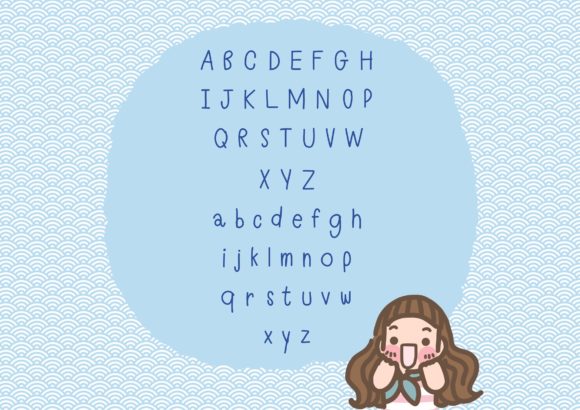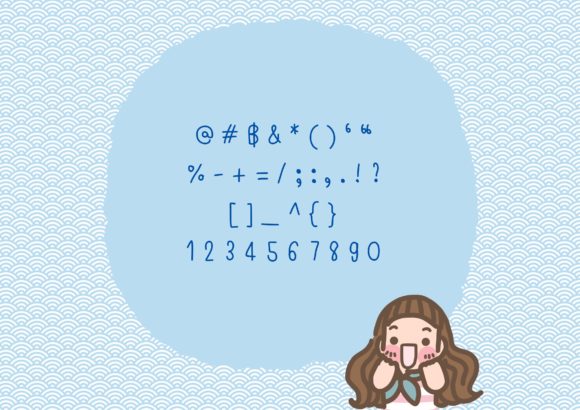
Introduction to Littleenjoy Font
Have you ever found yourself rummaging through your craft supplies, searching for the perfect chalkboard-style font to add a touch of whimsy to your creative project? I know I have! There’s something special about handwritten fonts that evoke a sense of nostalgia and playfulness, making them perfect for all sorts of design applications.
That’s why I’m excited to introduce you to the Littleenjoy Font, a high-quality, free download that’s sure to become a staple in your design resource library. With its authentic look and feel, this font is ideal for creating chalkboard quotes, teaching materials, and any other project that requires a personal and realistic touch.
Whether you’re a seasoned designer or just starting out, the Littleenjoy Font is a valuable addition to your toolkit, offering a transparent background and endless possibilities for creative expression.
Key Features of Littleenjoy Font
- High-quality design resource for creative projects, offering a unique and elegant style.
- Features a clean and modern design, perfect for use in logos, typography, and other creative projects.
- Designed to be highly legible, making it an ideal choice for body text and headings in creative projects.
Honest Review: Littleenjoy Font
I recently had the chance to work with the Littleenjoy Font, and I must say it’s a fantastic addition to any designer’s toolkit. This high-quality font is perfect for creative projects where a touch of elegance is needed.
- ✨ The font has a clean and modern design that makes it easy to read.
- ✨ The transparent background feature allows for seamless integration with any background image or color.
- ✨ The font family includes a variety of weights and styles, giving designers plenty of options for their creative project.
- ⚠️ The font may not be as versatile as some other options, and may not work well with very bold or intricate designs.
- ⚠️ The font family is relatively small, so designers may need to get creative with styling and combinations to achieve the desired look.
Overall, I’m really impressed with the Littleenjoy Font. It’s a solid choice for designers looking for a high-quality, free font that’s perfect for a wide range of creative projects.
Tips for Getting the Most Out of Littleenjoy Font
For a high-quality design, pair Littleenjoy Font with a transparent background to create a visually appealing effect. You can also experiment with different font sizes and styles to add depth and interest to your design.
Littleenjoy Font is a versatile design resource that can be used for a variety of creative projects, including logos, social media graphics, and presentations. Its free download makes it an ideal choice for designers on a budget.
Can I use the Littleenjoy Font with a transparent background?
Yes, the Littleenjoy Font supports transparent backgrounds, making it ideal for use in designs that require a subtle and elegant look. To use the font with a transparent background, simply use a design software that supports transparency, such as Adobe Illustrator or Canva.